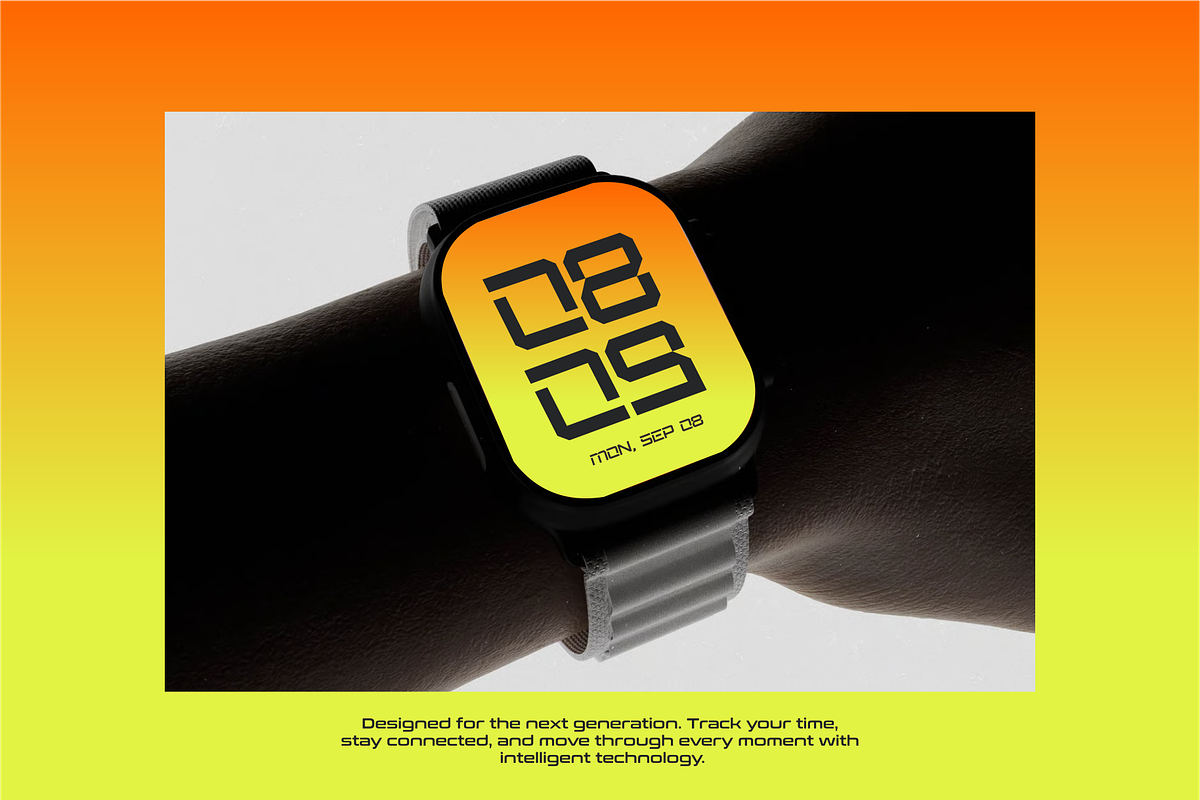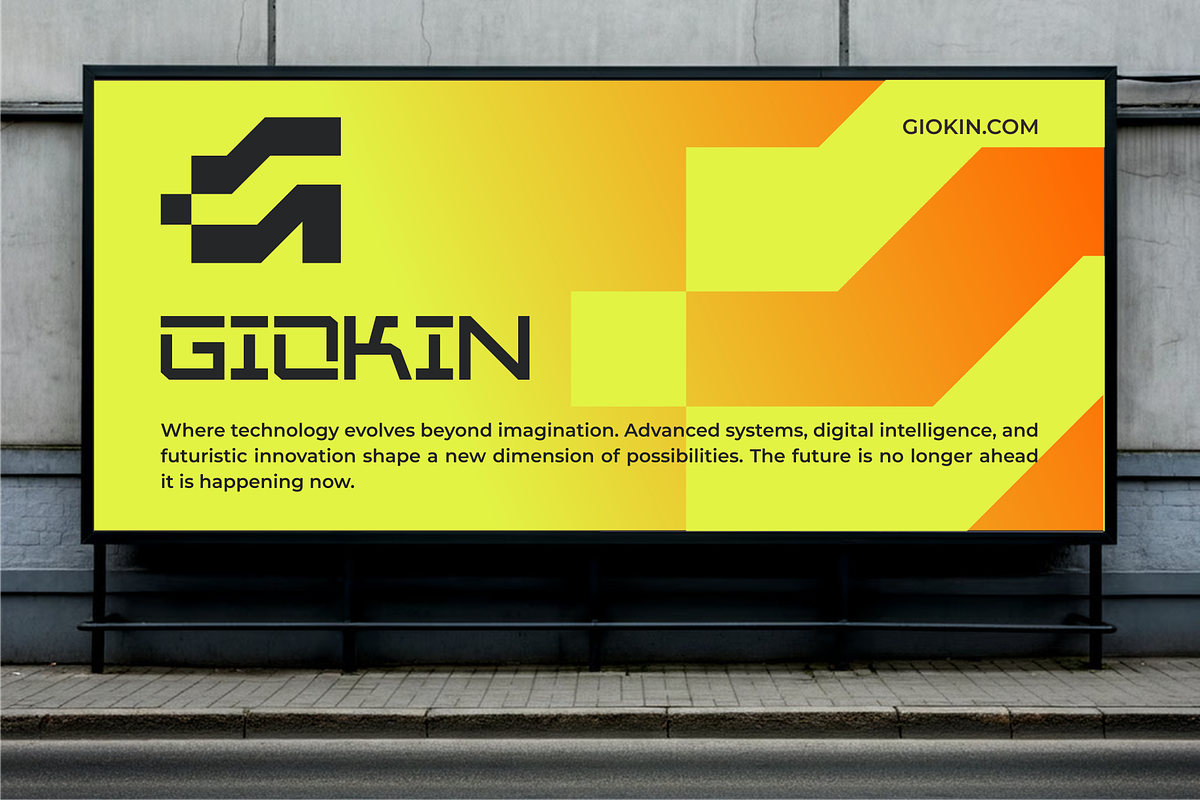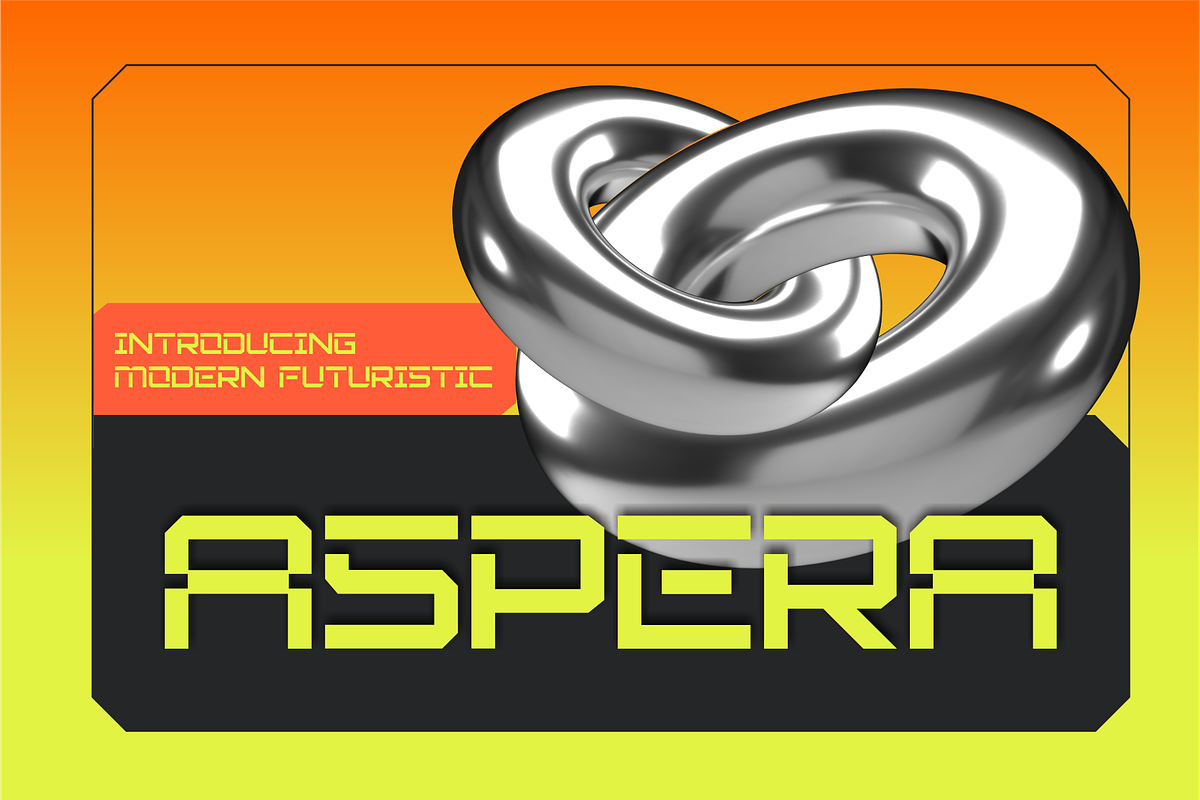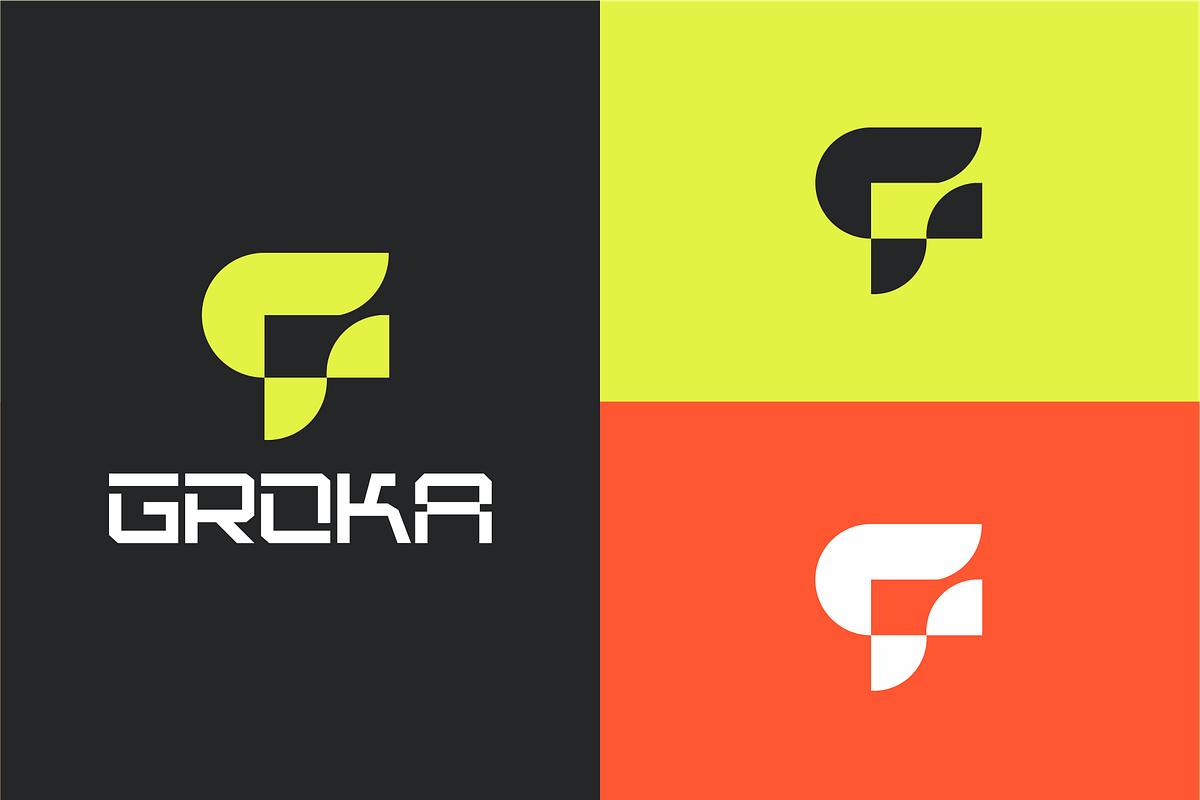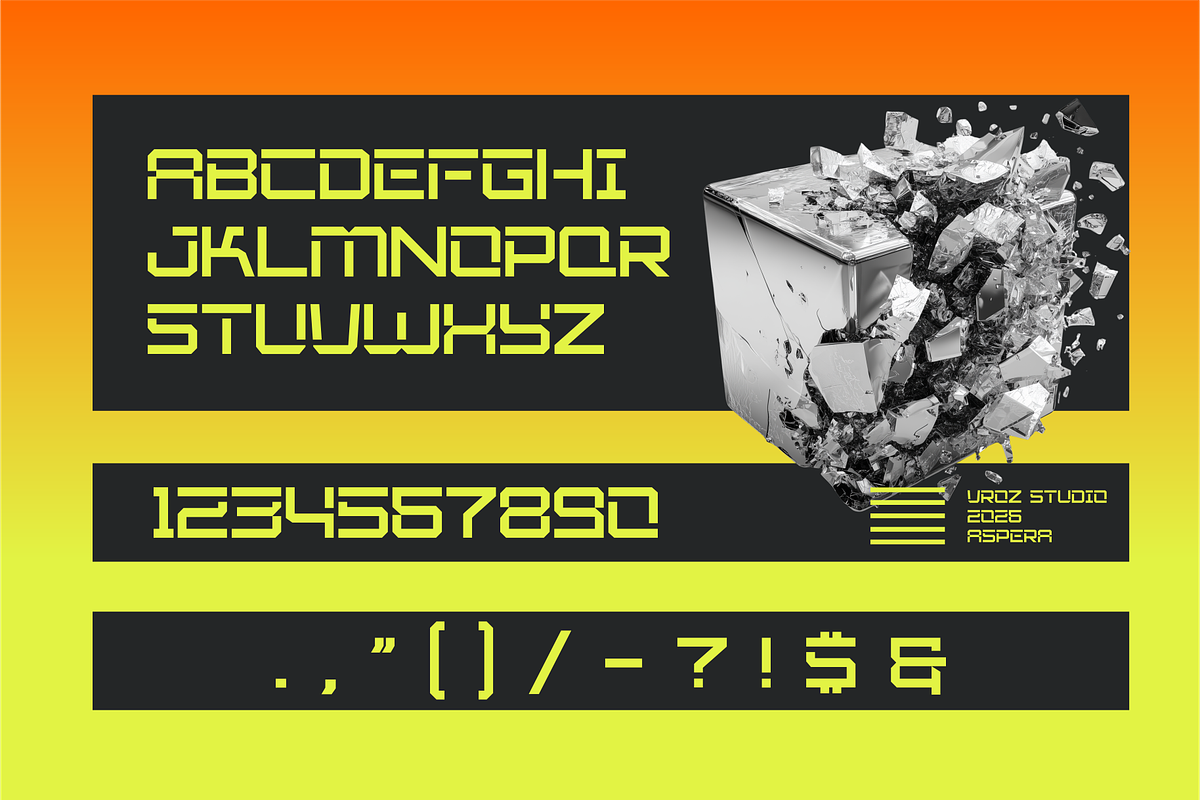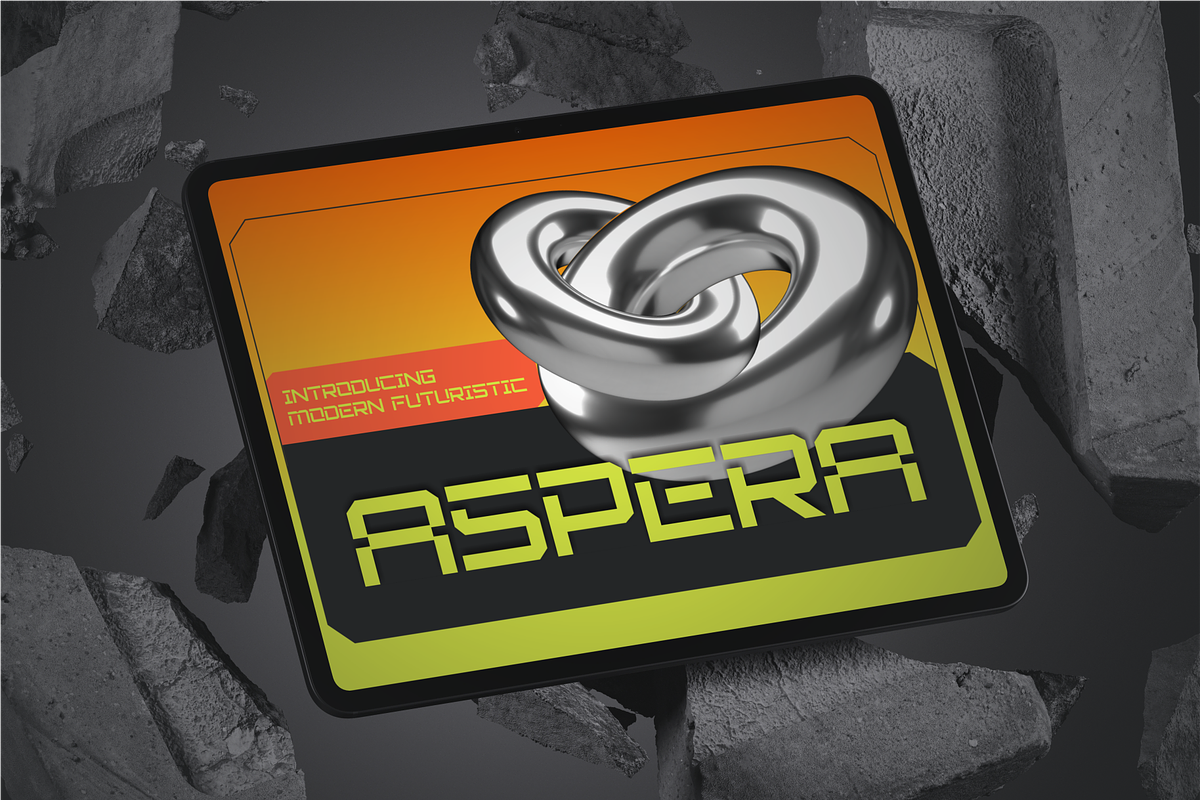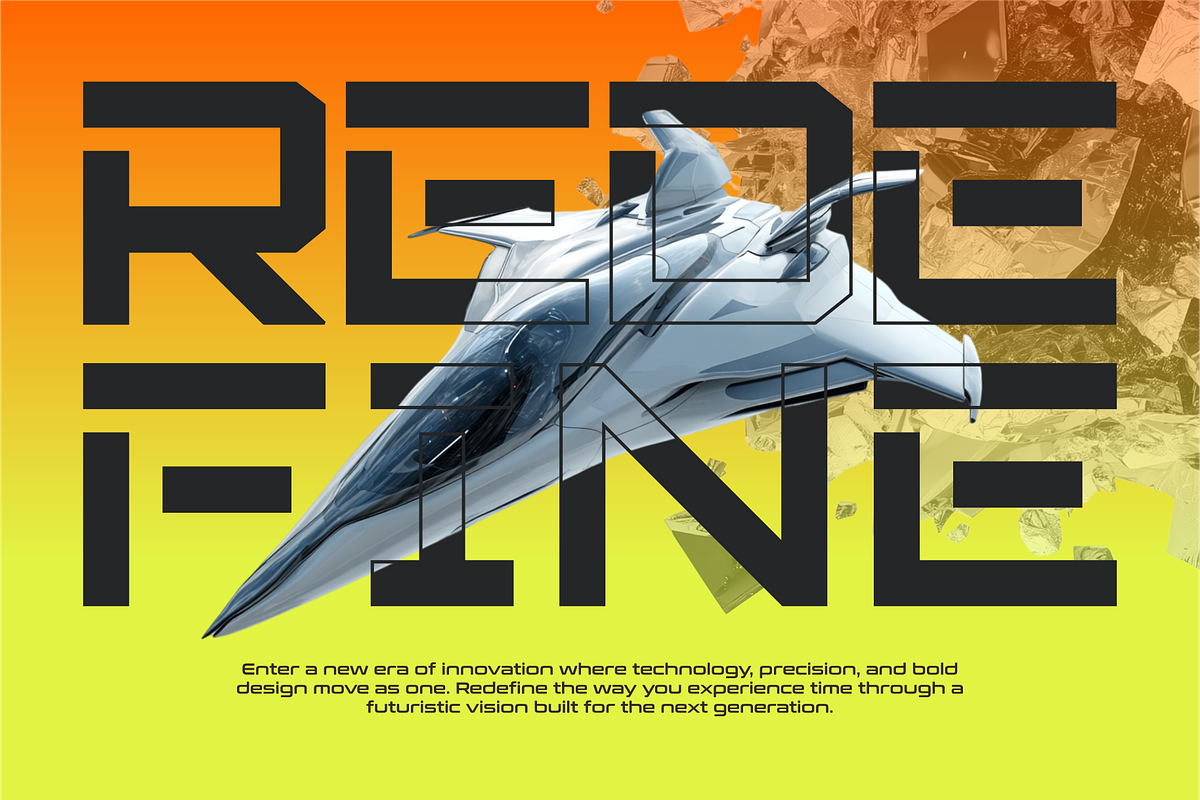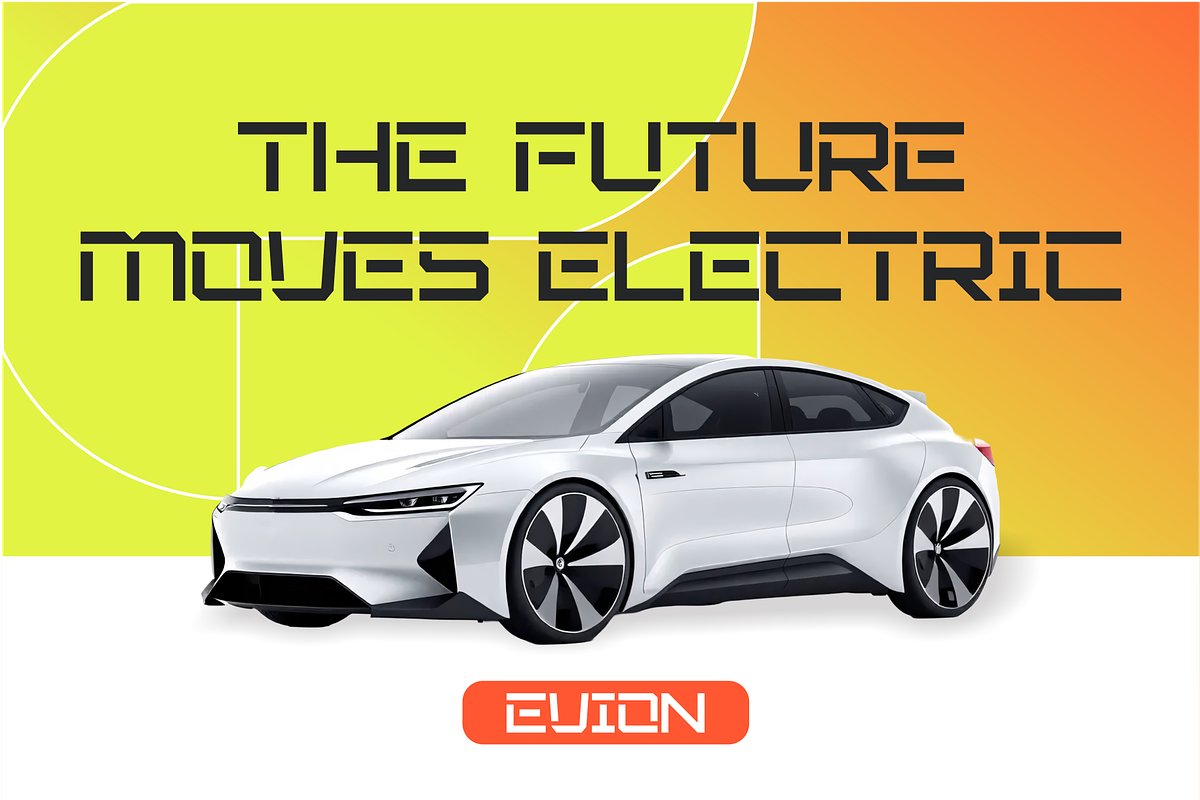
Aspera – Modern Futuristic
Aspera is a contemporary futuristic typeface crafted for bold visual communication and next-generation design. Its clean geometric construction, extended proportions, and distinctive letterforms create a sleek technological character while maintaining excellent readability.
With carefully designed ligatures and stylistic alternates, Aspera gives you greater creative freedom to build unique and expressive typography. The font also includes multilingual support, making it suitable for international branding, editorial projects, digital campaigns, and creative productions across different markets.
Technology Branding, Futuristic Posters, Sci-Fi Projects, Gaming, Esports, Digital Products, UI & Interfaces, Headlines, Titles, Advertising, Social Media, Motion Graphics, Magazine Covers, Packaging, and Modern Visual Identity.